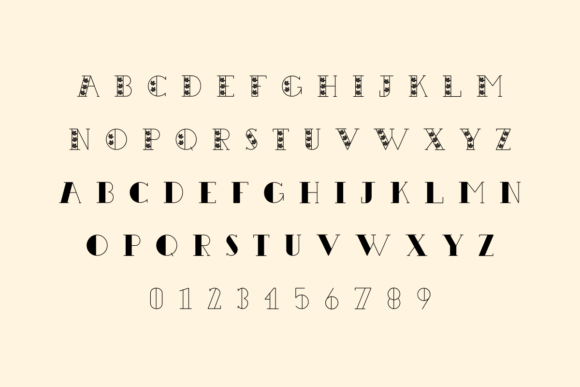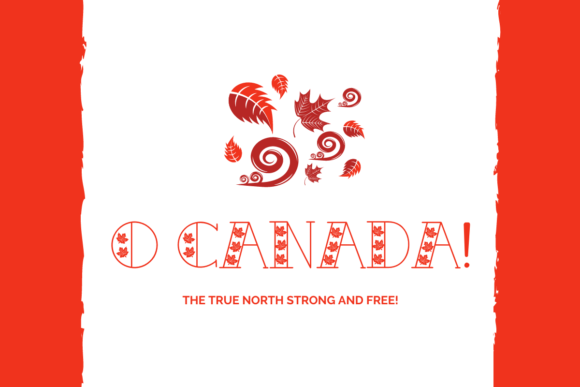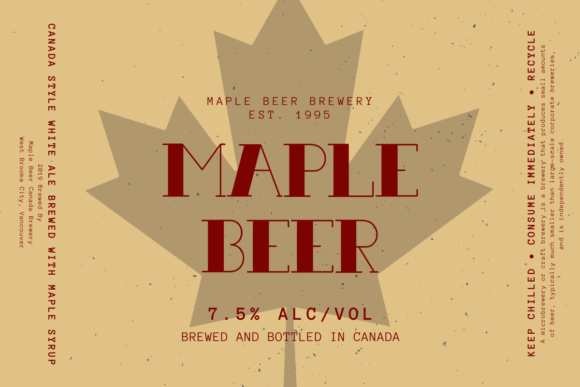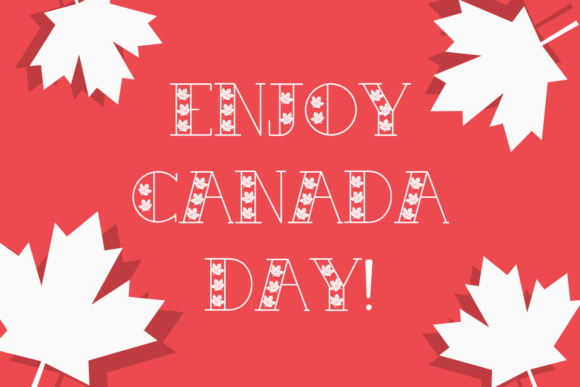
Designing for the Great White North: The Magic of Canada Day Font
It’s that time of the year when creativity flows like maple syrup – Canada Day is just around the corner! As designers, we love brainstorming unique ideas to celebrate this special day. And what better way to do it than with a font that screams patriotism and festivity? Enter Canada Day Font, a special type of font that’s sure to make your designs stand out.
With bold, clean lines and delicate maple leaves adorning each letter, Canada Day Font is the perfect addition to any Canada Day celebration. Whether you’re designing party invitations, social media graphics, or even a custom banner, this font is sure to add a touch of Canadian charm. And for designers, it’s a valuable asset – versatile, fun, and easy to use, making it a must-have in your design toolkit.
Canada Day Font Key Features
- Unique Characteristics: The font features a patriotic color scheme with red and white hues, making it perfect for Canada Day celebrations and other Canadian-themed events.
- Font Style: The font is available in both regular and bold styles, offering flexibility for different design needs
Canada Day Font Review
As a designer, I was excited to dive into the Canada Day Font and see what it had to offer. Overall, I’d say it’s a solid effort, but with some areas for improvement.
- The font’s patriotic theme is on point, capturing the spirit of Canada Day perfectly.
- The bold, playful feel of the font makes it perfect for social media graphics, posters, and other promotional materials.
- The font’s legibility is good, making it easy to read even at smaller sizes.
- The font feels a bit too kitschy for some applications, and may not be suitable for more formal or professional designs.
- The font’s versatility is limited, and it may not be the best choice for longer blocks of text or more complex compositions.
Overall, the Canada Day Font is a fun and playful addition to any designer’s toolkit. While it may not be the best choice for every project, it’s perfect for adding a pop of patriotic flair to your designs. With a bit more refinement and versatility, this font could be a real showstopper.
The Canada Day Font is ideal for:
– Creating patriotic designs for Canada Day celebrations
– Adding a touch of Canadian flair to business presentations
– Designing flyers or brochures for Canadian events
– Creating social media graphics for Canadian-themed campaigns
To get the most out of the Canada Day Font, experiment with different font sizes and styles to create a visually appealing design. Use the font in conjunction with other design elements, such as images and graphics, to create a cohesive look.
Alternatives to Canada Day Font for Designers
Great Vibes is a modern, elegant script font that can be used to convey a sense of celebration and joy. It’s ideal for designing invitations, posters, and other promotional materials for events and parties. Compared to Canada Day Font, Great Vibes has a more refined and sophisticated feel, making it suitable for upscale events and high-end branding.
Pacifico is a beautiful, cursive font that can be used to add a touch of elegance and sophistication to your designs. It’s perfect for creating invitations, announcements, and other materials that require a sense of refinement and luxury. Compared to Canada Day Font, Pacifico has a more relaxed and casual feel, making it suitable for beach-themed events and tropical branding.